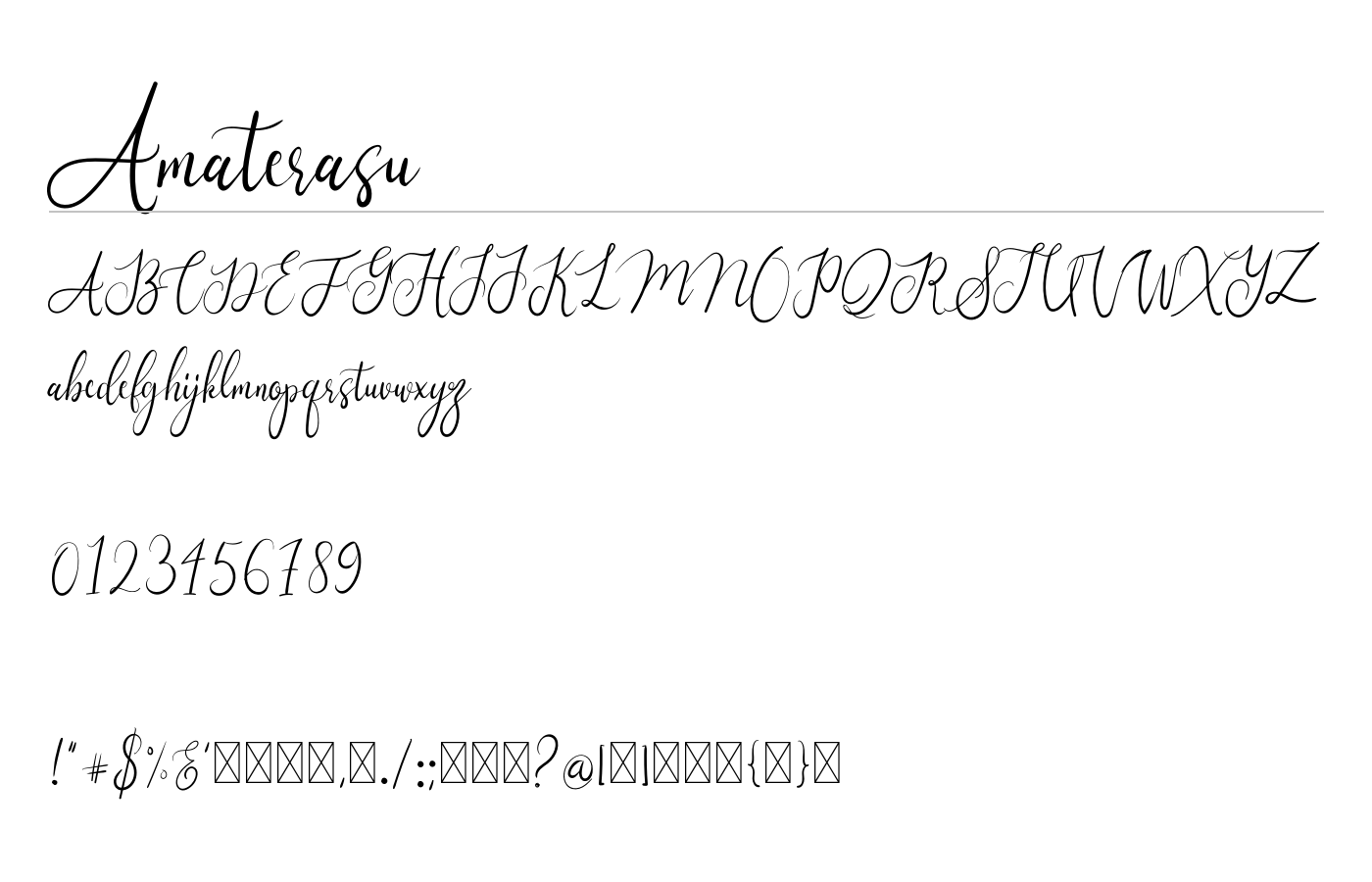
Amaterasu is an elegant script font characterized by its delicate, flowing strokes and high contrast between thick and thin lines, giving it a graceful and refined appearance. Its slender, cursive letterforms with smooth curves and calligraphic style make it perfect for sophisticated branding, wedding invitations, and feminine designs where a touch of luxury and warmth is desired. This font works best in large sizes such as headlines or logos, where its artistic details can truly shine.
Amaterasu Font
About Amaterasu Font